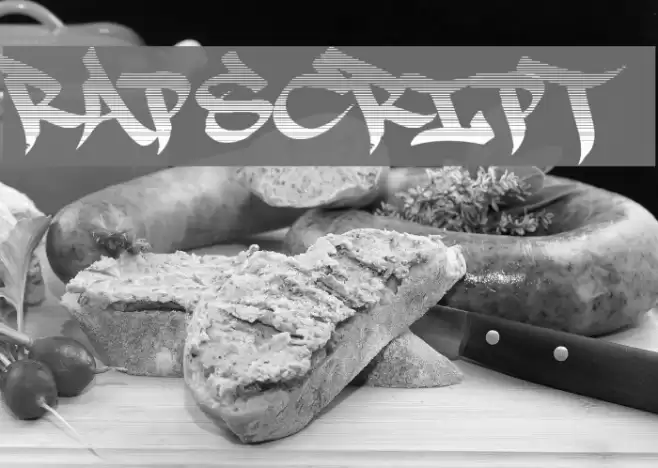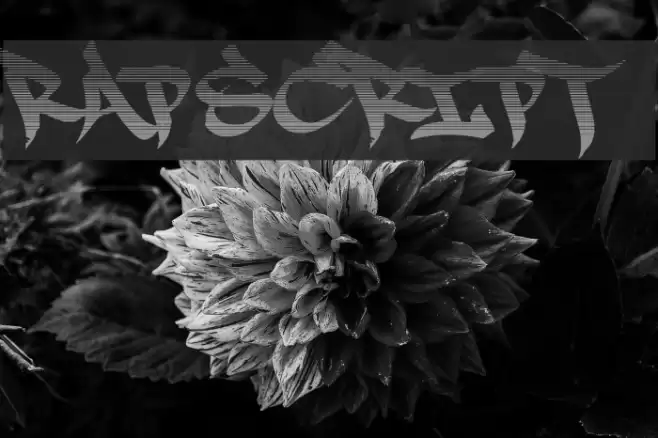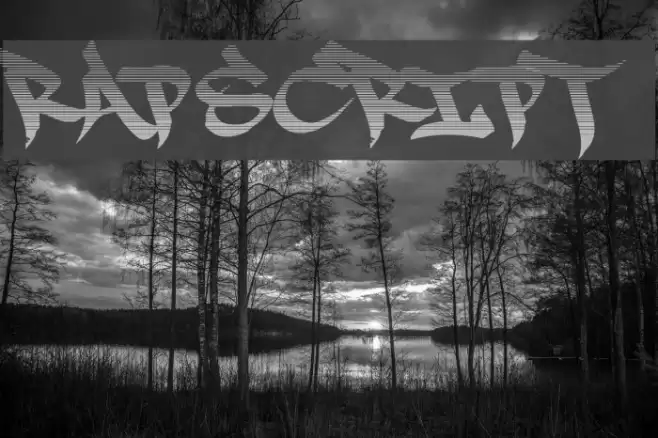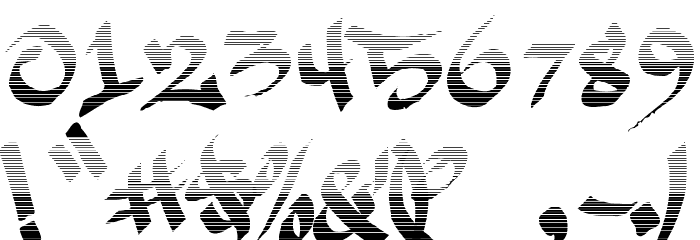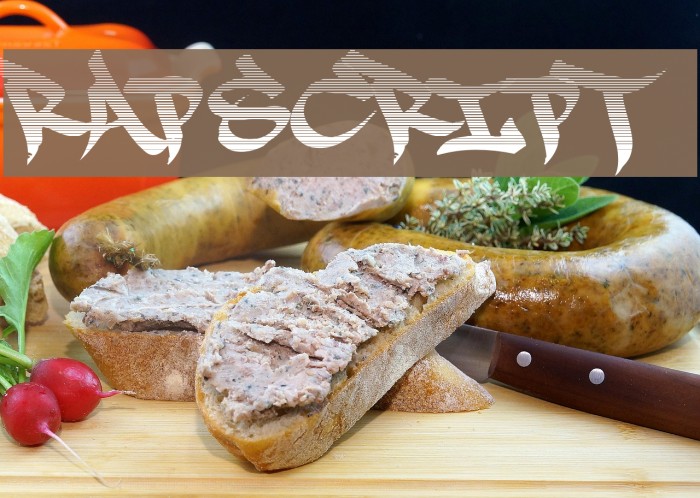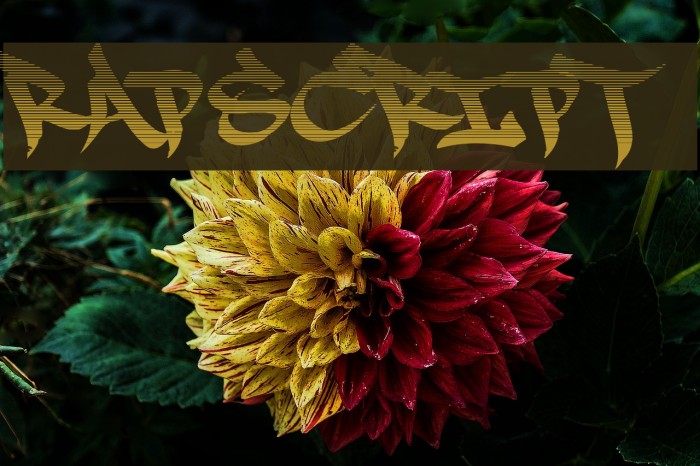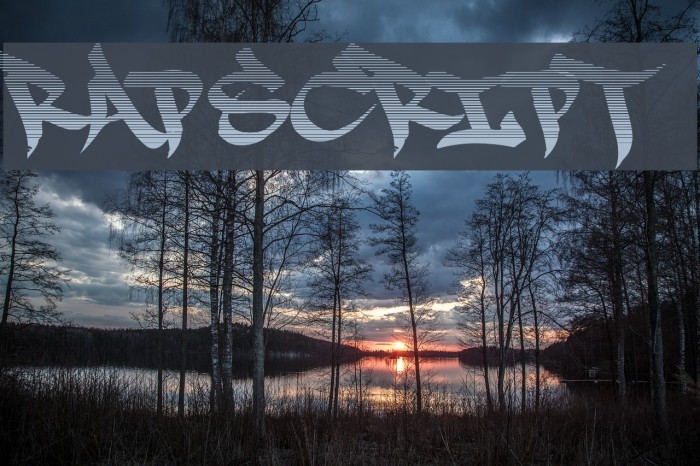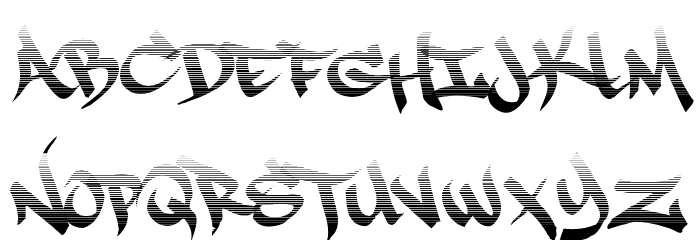
RapScript Font
RapScript Description
This font features a bold, graffiti-inspired style with sharp, angular lines and dynamic strokes. The letters exhibit a sense of movement and energy, reminiscent of street art and urban culture. The uppercase and lowercase characters maintain a consistent aesthetic, with a slight slant that adds to the overall edgy feel. Numbers and special characters are designed with the same attention to detail, ensuring a cohesive look across all elements. The font's unique design makes it stand out, ideal for projects that require a bold statement.
A bold, graffiti-inspired font with sharp, angular lines and dynamic strokes from Uncategorized fonts.
- Proposed Projects: Ideal for street art designs, music album covers, urban-themed posters, and edgy branding projects.
- Overall Style: Urban, Edgy, Modern
- Use Case: Logos, Posters, Headlines